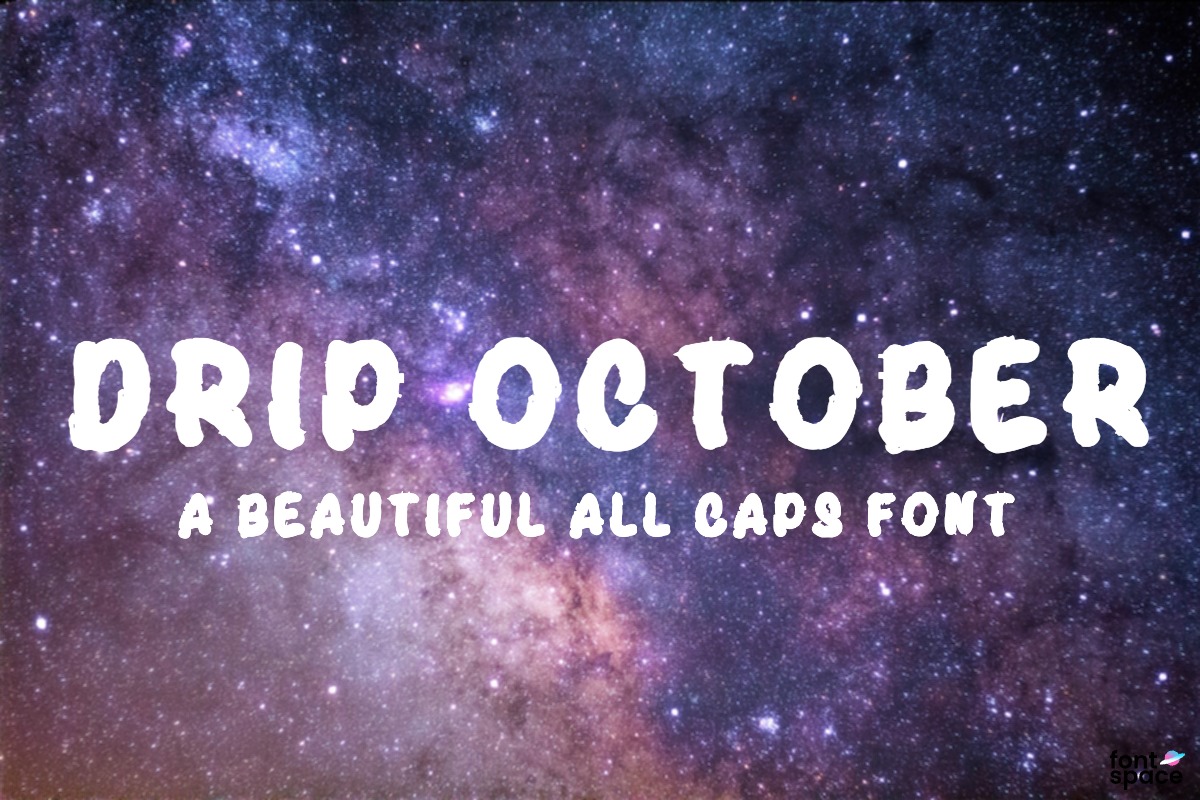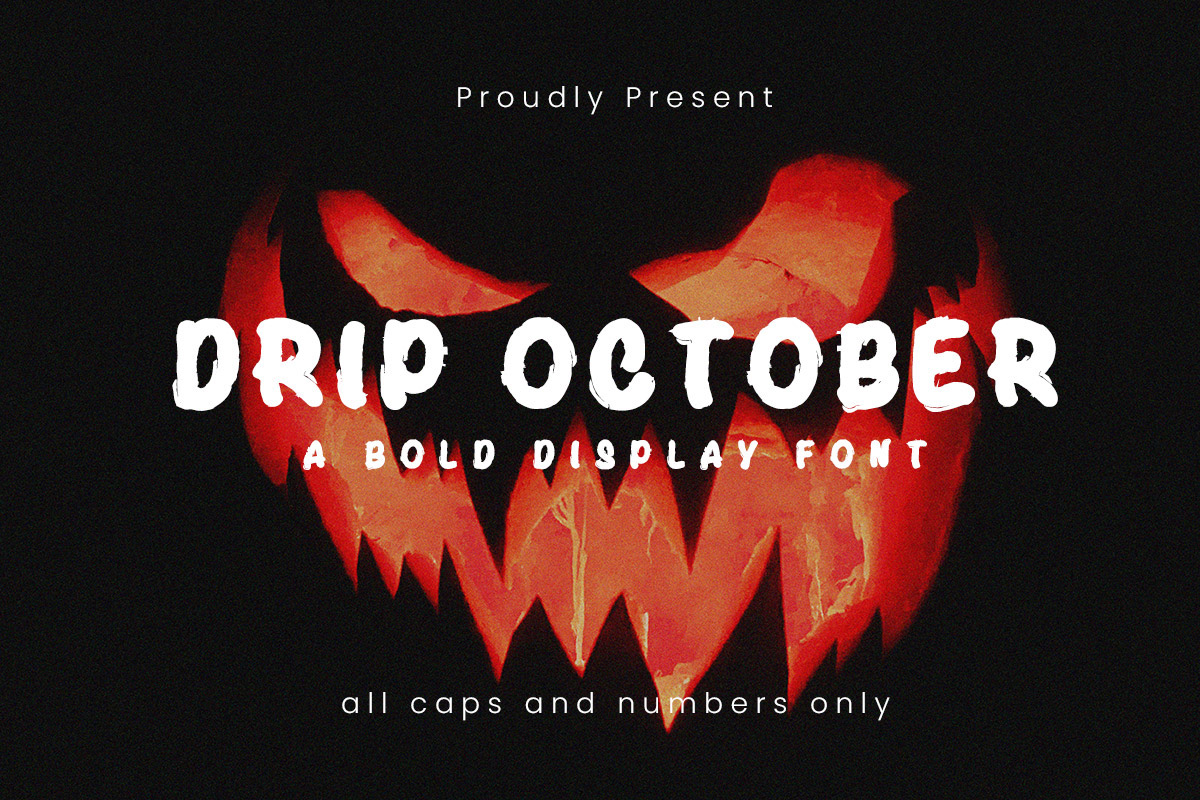
Drip October Font
Drip October is a unique dripping marker font, ideal for posters, displays, branding, logos, signage, invitations, and more. Its beautifully textured strokes provide a natural, artistic feel to your designs.